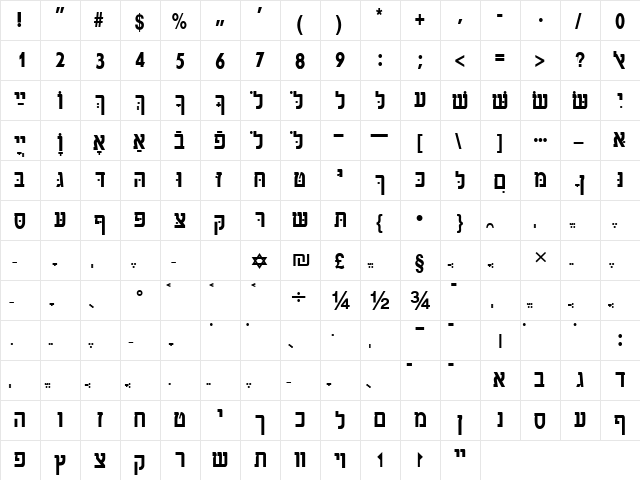
HebrewAaronSSK Bold
Design Context for HebrewAaronSSK Typeface
HebrewAaronSSK is a composed and adaptable typeface that performs quietly and consistently across a wide range of design contexts. Its bold stroke weight gives it real presence on the page.